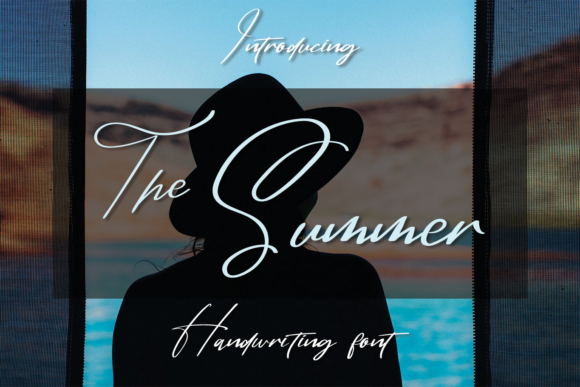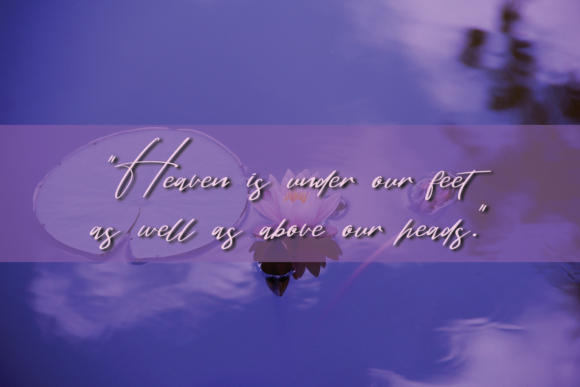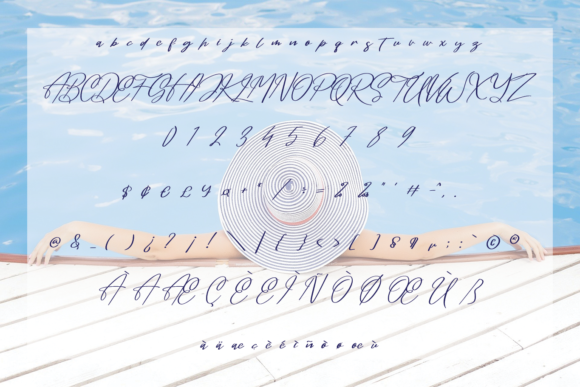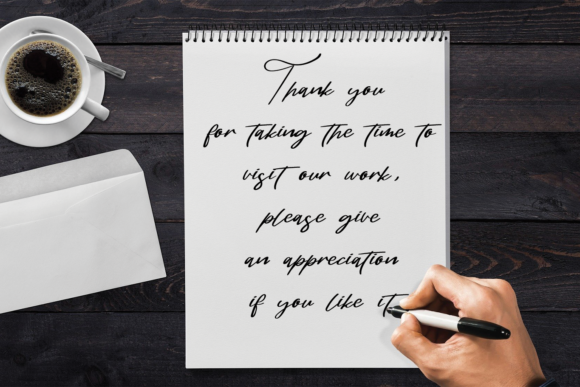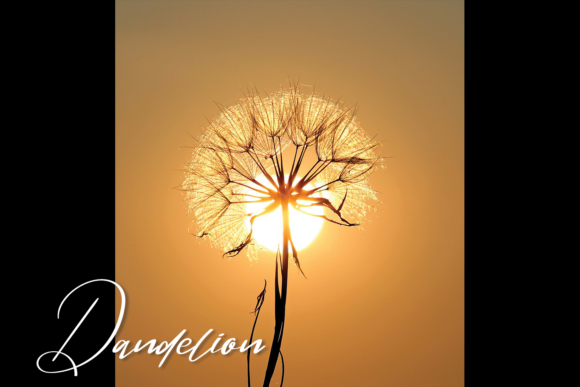
The Summer Font
About The Summer Font
The Summer is a dainty and flowing handwritten font.
Sweet and joyful, this font will be ideal for writing wedding invitations, cards or any other design that may need a romantic, personalized touch!